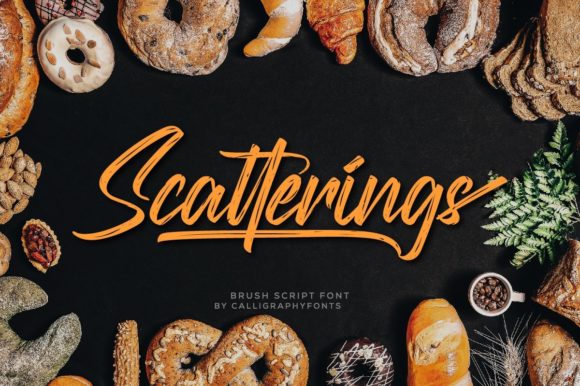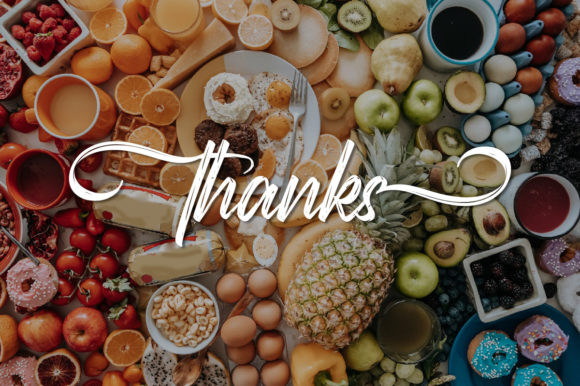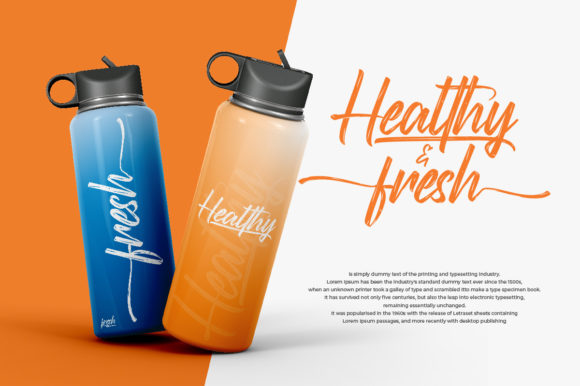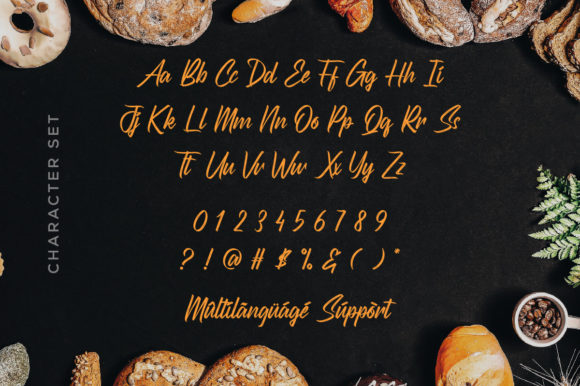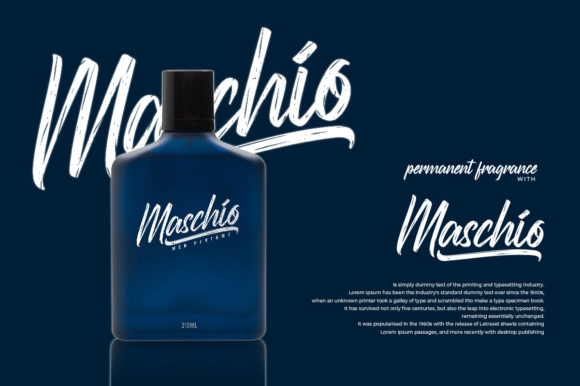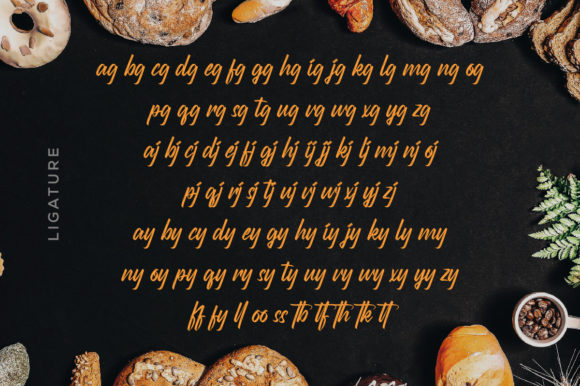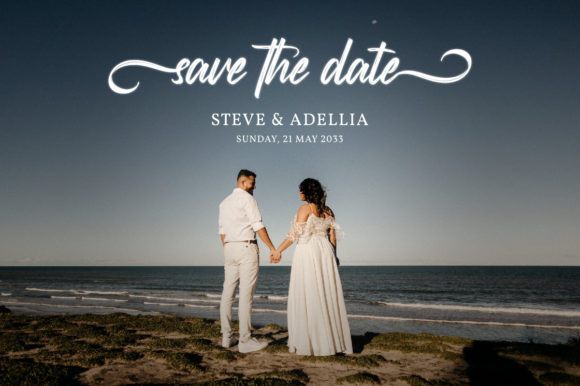
Scatterings Font
About Scatterings Font
Scatterings is a lovely and timeless brushed handwritten font. It is the best choice for creating eye catching logos, branding and quotes. This font is PUA encoded which means you can access all of the glyphs and swashes with ease!